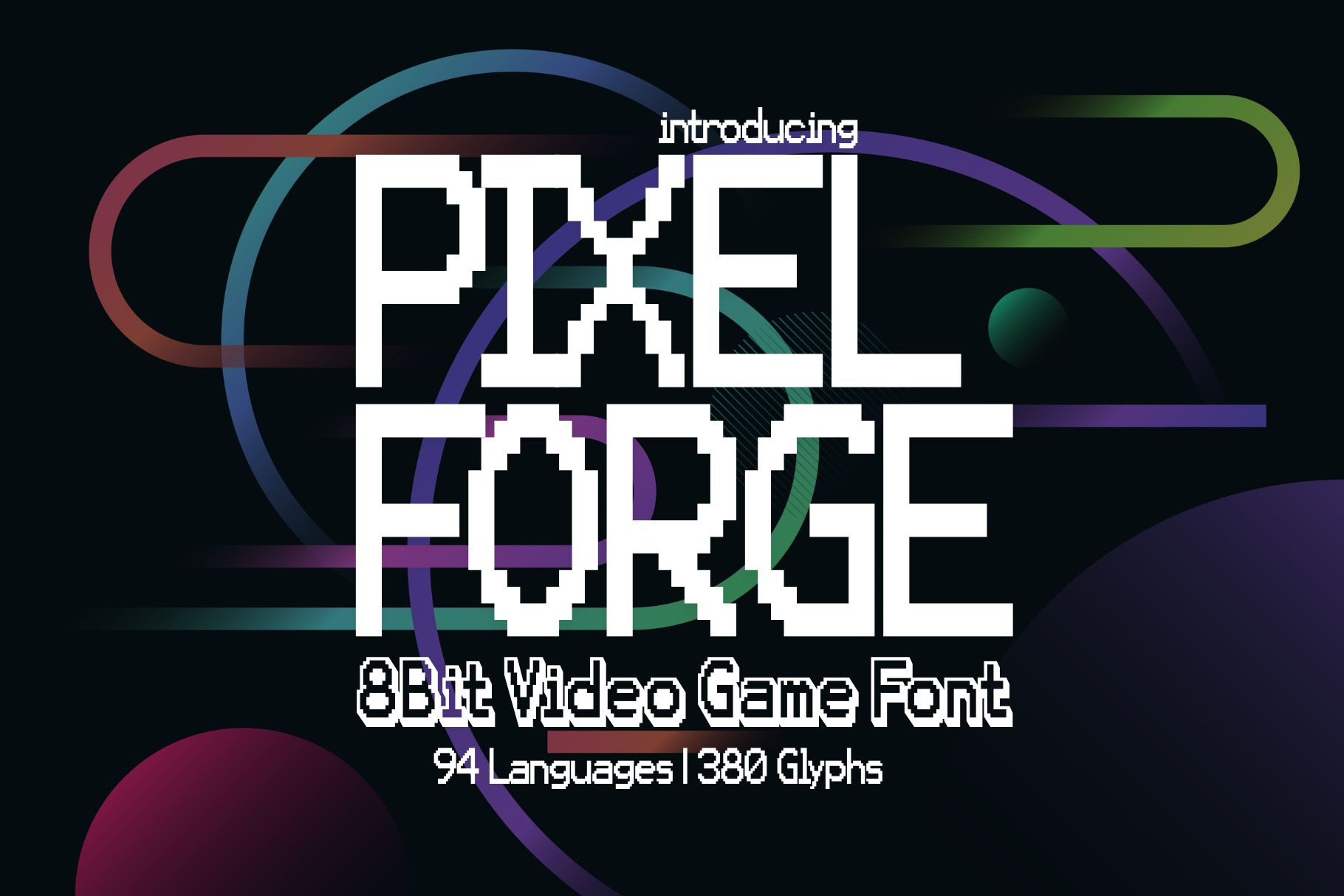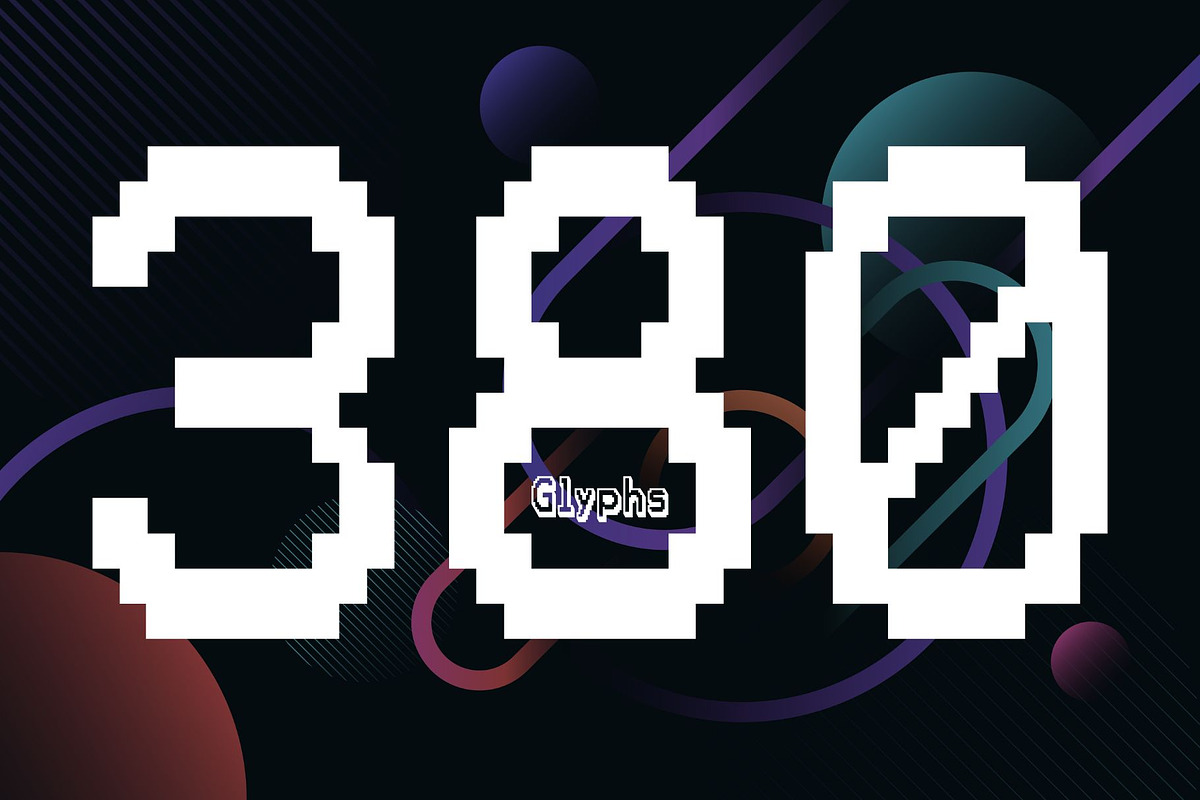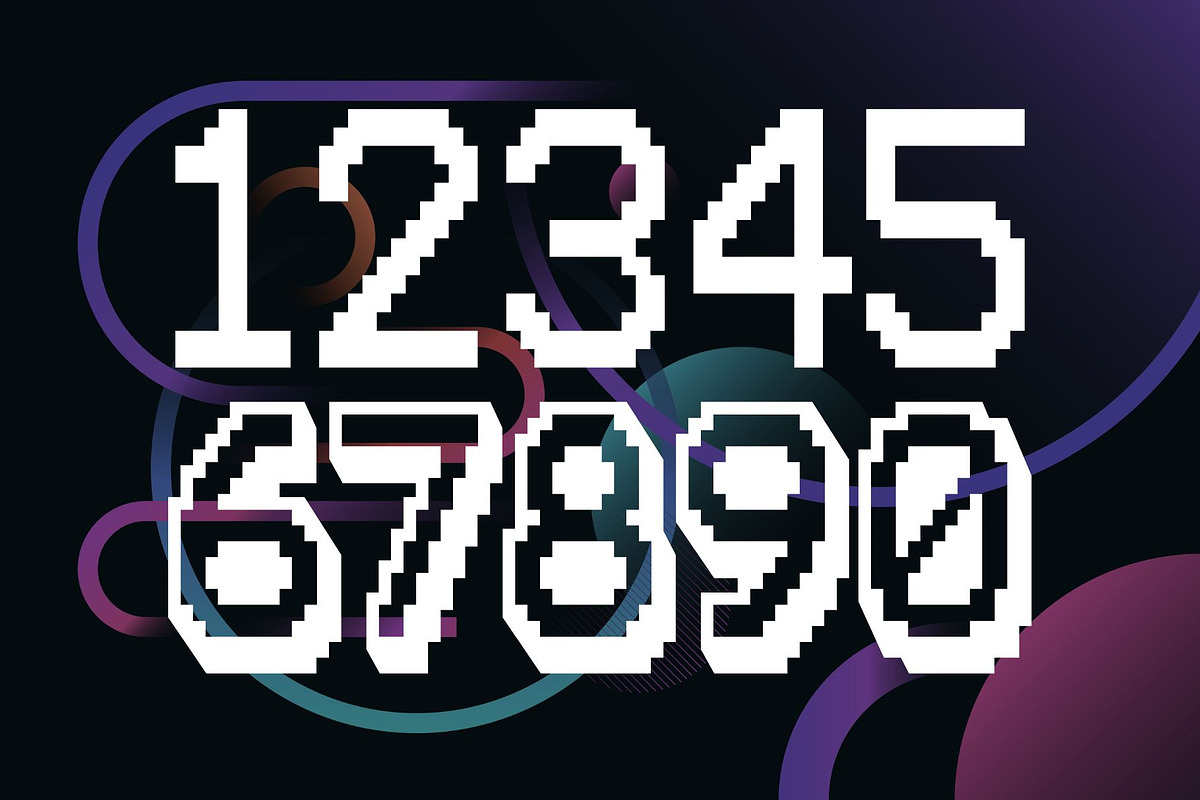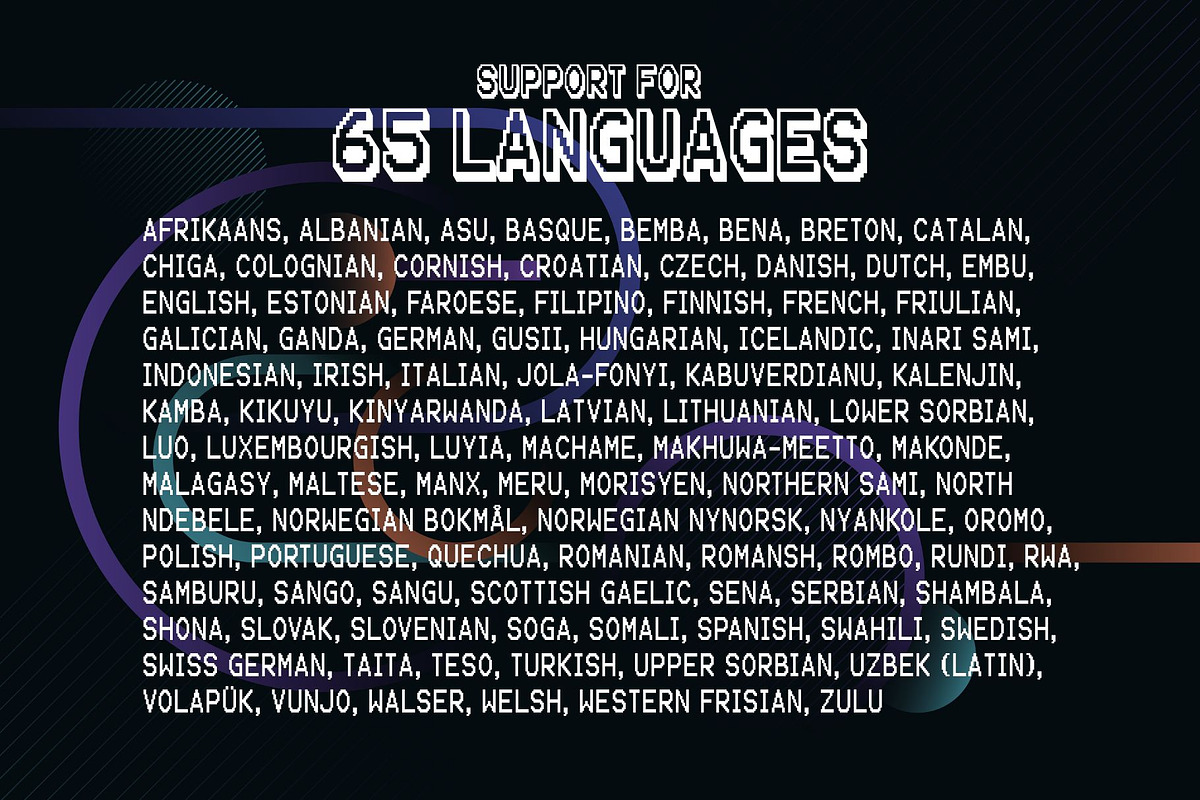
Pixel Forge Font Duo
Pixel Forge is a bold, grid-built pixel display font forged for creators who love retro precision with modern depth. Built from clean pixel geometry and paired with a powerful 3D version, this typeface delivers instant impact for both nostalgic and futuristic designs.
The standard pixel style captures the unmistakable charm of classic arcade, 8-bit, and early digital typography, while the included 3D version adds dimension, weight, and visual punch—perfect for standout headlines and logos.
Pixel Forge is ideal for games, posters, branding, album covers, YouTube thumbnails, tech visuals, and digital art. Whether you’re designing something playful, nostalgic, or boldly modern, this font gives your work a crafted, engineered feel—like pixels hammered into shape.
If your project needs typography that feels built, not borrowed, Pixel Forge is ready to power it up.
✦ Features
- Crisp pixel display font
- Includes matching 3D version
- Perfect for games, posters, logos & digital design
- Retro pixel style with modern depth
- Strong, readable, and visually striking
Pixel Forge turns pixels into power. 🔥👾